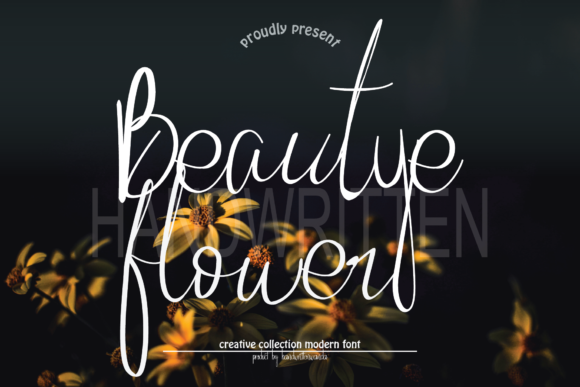
Embark on an enchanting journey with Beautye Flowers Font, a captivating script font born from the fusion of imagination and artistry. Experience the allure of handwritten letters, each stroke infused with grace and sophistication. This font family, designed with a touch of elegance, is an ode to the beauty of nature, capturing the essence of blooming flowers and the delicate caress of petals.
Unleash your creativity with Beautye Flowers Font, the perfect companion for your Instagram posts, logos, branding, and an array of DIY projects. Let your words dance across the screen, leaving a trail of elegance and charm. Transform your creative visions into tangible masterpieces with this font that elevates your designs to new heights of artistry.
Step into a world where fonts are more than just characters; they are expressions of your unique style and personality. With Beautye Flowers Font, you hold the key to unlock a world of possibilities. Whether you seek a touch of whimsy or a dash of sophistication, this font adapts seamlessly to your creative vision.
Explore the endless possibilities of Beautye Flowers Font. Craft breathtaking logos that exude professionalism and leave a lasting impression. Create Instagram posts that radiate elegance and captivate your audience. Design eye-catching branding materials that speak volumes about your brand's personality. With this font, your creativity knows no bounds.
Let Beautye Flowers Font be your muse, guiding you to create designs that resonate with your audience. Ignite your passion for design and let your imagination soar. Experience the magic of Beautye Flowers Font and embark on a journey where creativity and beauty intertwine.